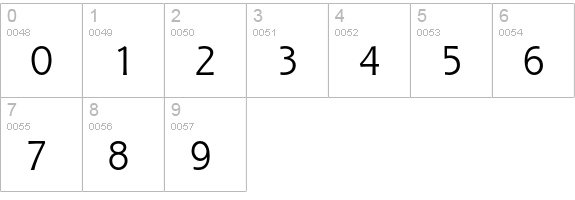
Shannon Std is a stunningly elegant font that effortlessly combines classic refinement with a modern twist. With its clean lines and graceful curves, this typeface exudes sophistication and professionalism. Whether used for headings, logos, or body text, Shannon Std adds a touch of timeless beauty to any design. What makes Shannon Std truly remarkable is that it is not only a visually captivating font, but it is also free for personal and commercial use. Yes, you read that right – this exquisite typeface is freely available to download at FontsMarket.com. Now you can elevate your projects without breaking the bank. With Shannon Std, your creativity knows no bounds. Its versatile nature allows it to seamlessly adapt to a wide range of design styles, from elegant wedding invitations to sleek corporate presentations. Its legibility ensures that your message is conveyed with clarity and professionalism, leaving a lasting impression on your audience. The attention to detail in Shannon Std is simply unparalleled. Each character is meticulously crafted, resulting in a harmonious and balanced typeface that is pleasing to the eye. The generous letter spacing ensures optimal readability, while the variety of weights and styles provide flexibility and versatility in your designs. Whether you are a designer, a business owner, or simply someone who appreciates beautiful typography, Shannon Std is a must-have addition to your font collection. Download it for free at FontsMarket.com and witness the transformative power it brings to your creative projects. Don't miss out on this opportunity to elevate your designs with a font that is both visually captivating and freely available.